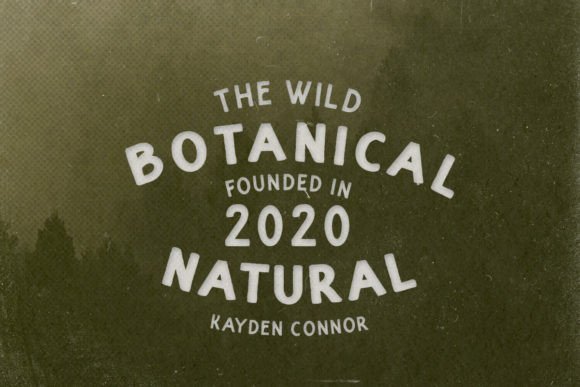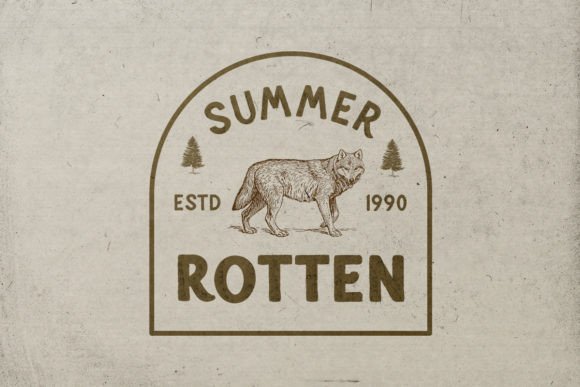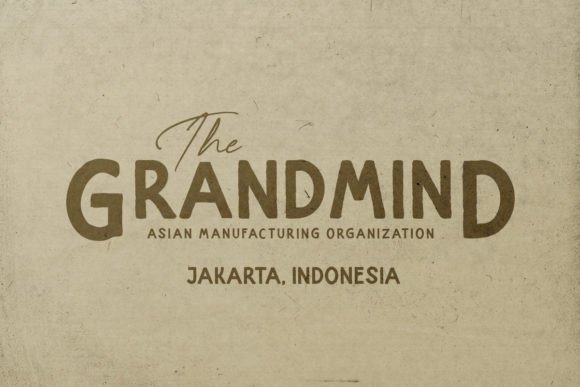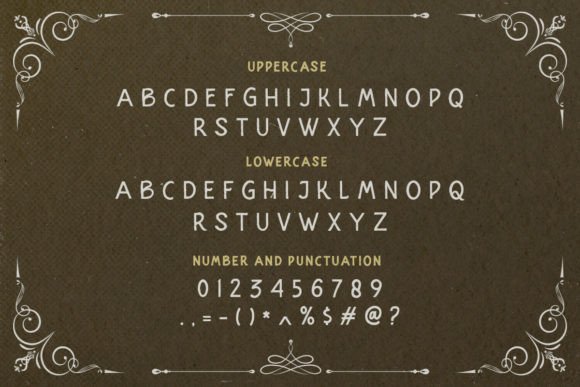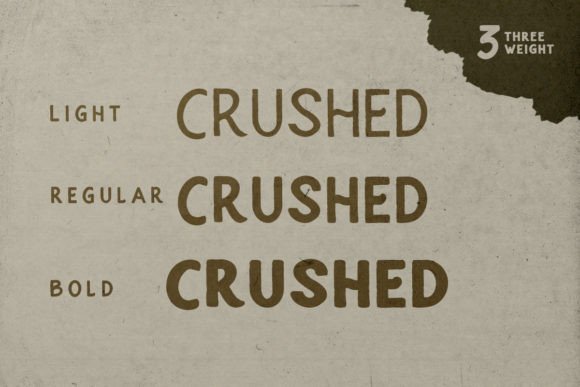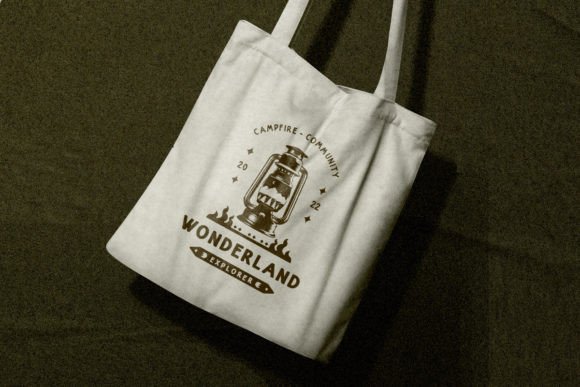
Discover the Perfect Distressed Look with Crushed Font
Have you ever stared at a blank canvas, feeling the urge to create something that embodies the spirit of adventure and the great outdoors? That’s exactly where Crushed Font comes in – a handmade sans family that’s as rough and organic as the terrain it’s inspired by.
Designed to evoke the feeling of weathered stone and worn leather, Crushed Font is the perfect choice for designers looking to add a touch of rugged charm to their projects. With its light, regular, and bold weights, this versatile font can be used for logotypes, quotes, and any other design that needs a bit of grit and character.
Whether you’re working on a branding project or simply want to add some visual interest to your next design, Crushed Font is a valuable addition to your toolkit. Its unique, distressed look is sure to set your work apart from the crowd and leave a lasting impression on your audience.
Crushed Font Key Features
- Unique Characteristics: Crushed Font features a distressed, crushed effect, giving it a unique and eye-catching appearance that sets it apart from other fonts.
- Weight and Style: Crushed Font is available in multiple weights and styles, including regular, bold, italic, and bold italic, providing flexibility for designers and typographers.
Crushed Font Review
Overall, I’m quite impressed with Crushed Font, but it’s not without its limitations. Here’s my honest take on this font.
- Unique aesthetic: Crushed Font has a distinct, handmade feel that’s perfect for adding some character to your designs.
- Legibility: Despite its rough edges, Crushed Font is surprisingly readable, even at smaller font sizes.
- Playful vibe: This font is perfect for projects that require a bit of whimsy and personality.
- Font size limitations: Crushed Font can become too busy at larger font sizes, making it harder to read.
- Limited flexibility: The font’s handmade quality makes it less suitable for projects that require a lot of customization or adjustments.
- Not ideal for body text: While Crushed Font is great for headlines and titles, it’s not the best choice for body text due to its irregular spacing.
Crushed Font is a great addition to any designer’s toolkit, especially for projects that require a bit of flair and personality. While it has its limitations, it’s a versatile font that can add a unique touch to your designs.
Common Use Cases and Tips
Common use cases for Crushed Font include adding a distressed or vintage effect to text, creating a unique and eye-catching title, or adding a sense of urgency to a headline. To get the most out of Crushed Font, experiment with different font combinations, effects, and sizes to achieve the desired look.